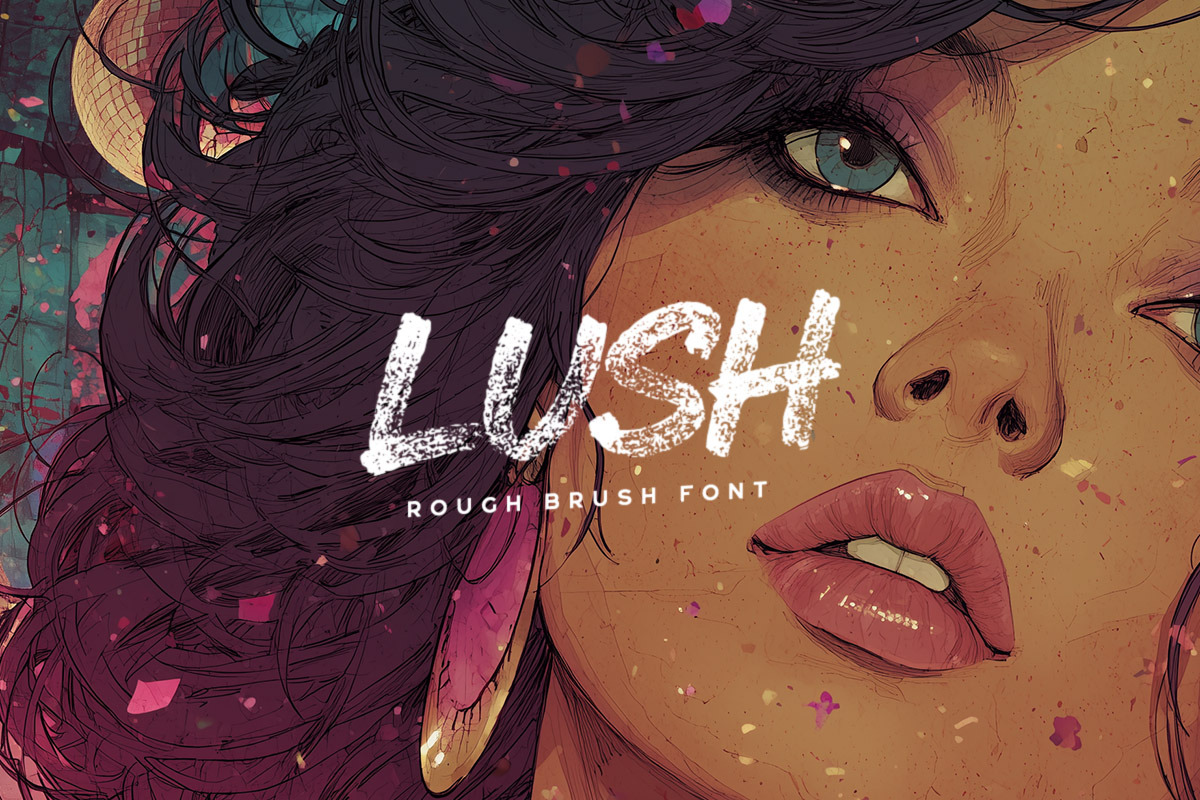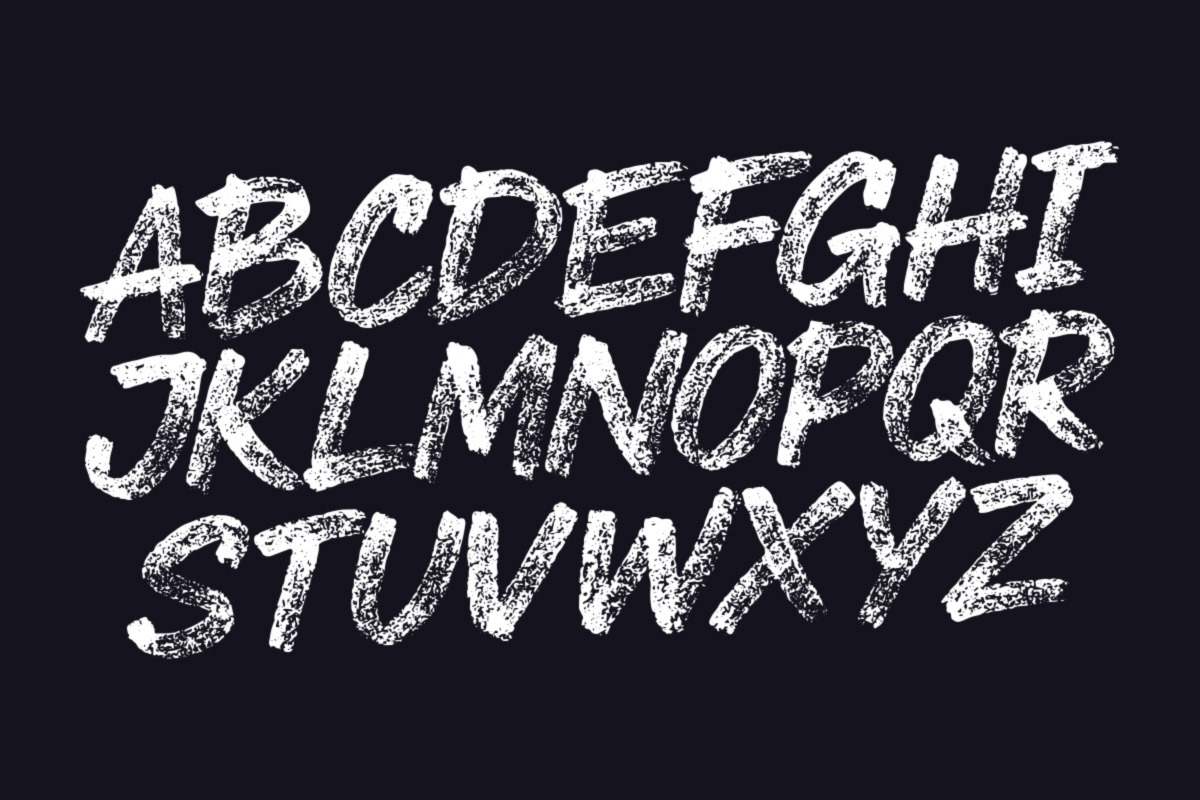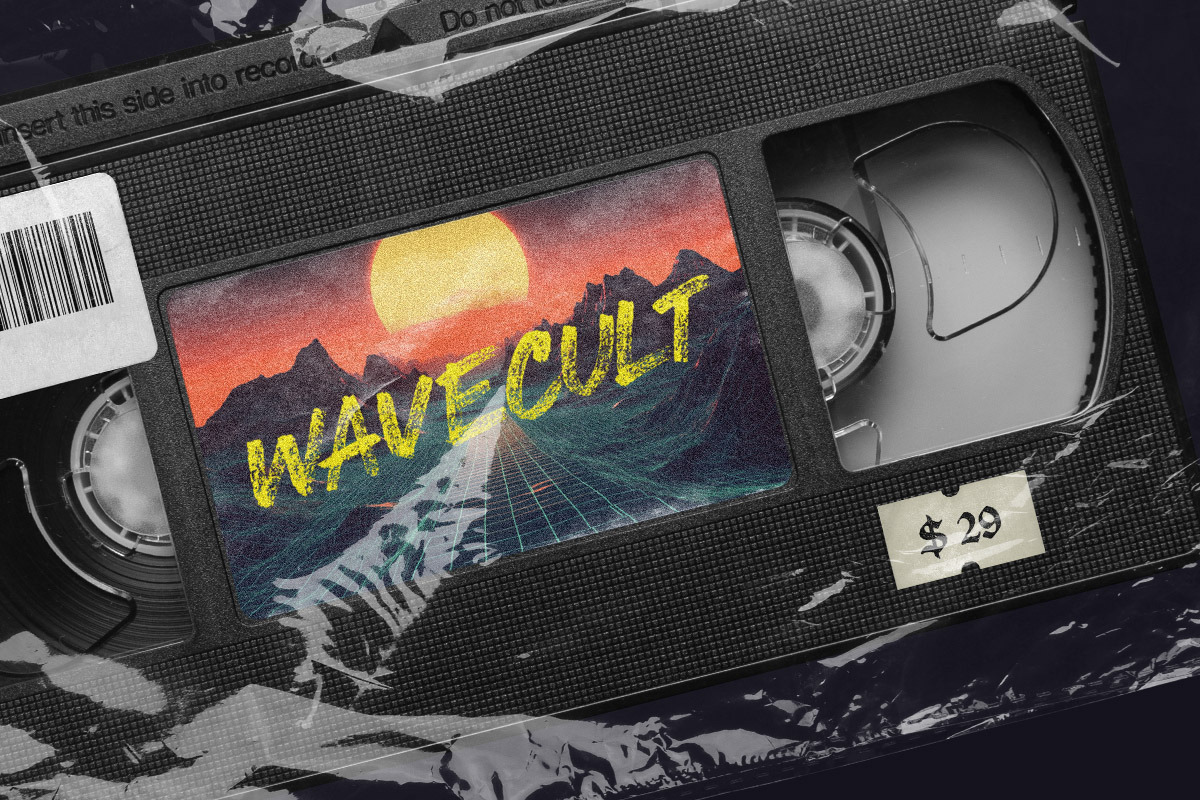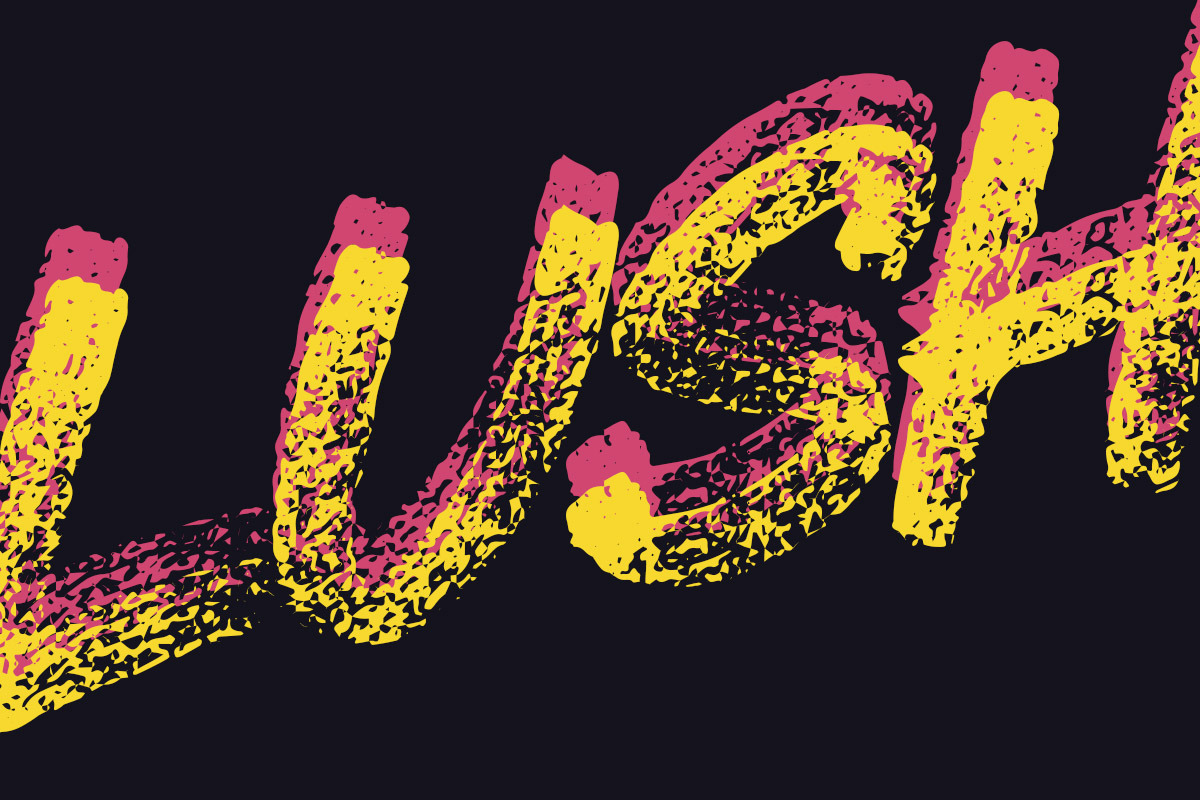
Lush - Brush Font
Lush is a brush font with strong charcoal textures. It also includes a couple of alternate letters you can toggle via Caps Lock. This is a really heavy font due to the texture and might lock up your PC while installing. I would not recommend using it as a webfont.